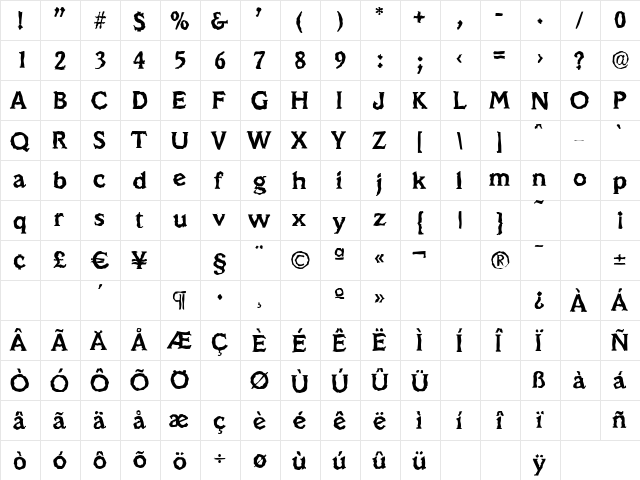
VeracruzRandom Bold
Design Context for VeracruzRandom Typeface
VeracruzRandom is a composed and adaptable typeface that performs quietly and consistently across a wide range of design contexts. The heavy weight commands attention and anchors typographic hierarchies.
Pro Tip: Use VeracruzRandom in both headline and body roles to test its range before committing to a single application.